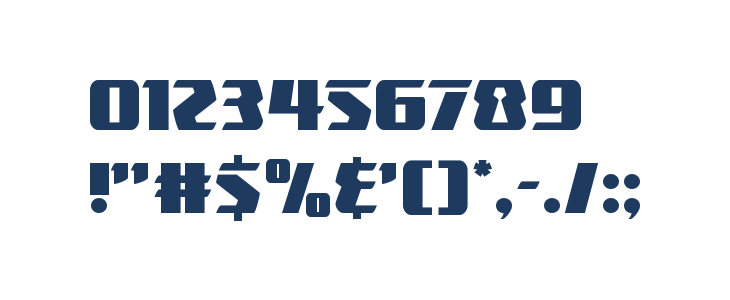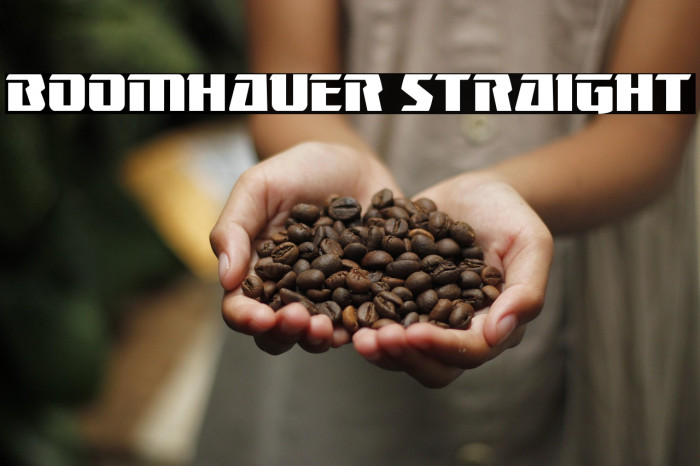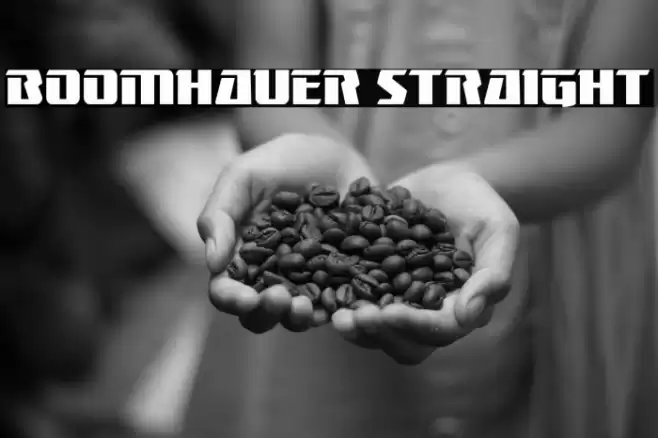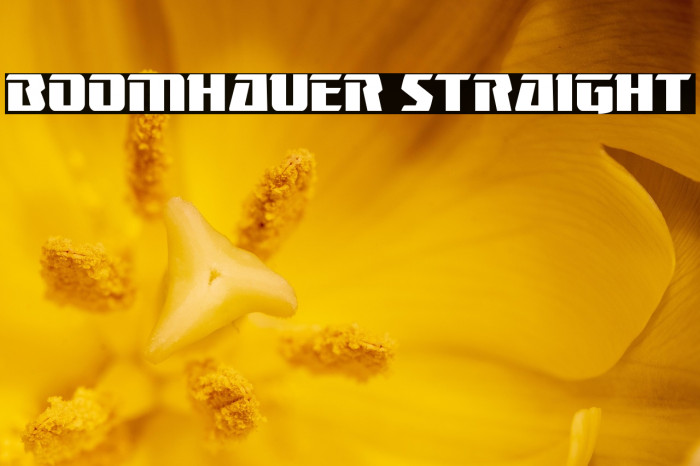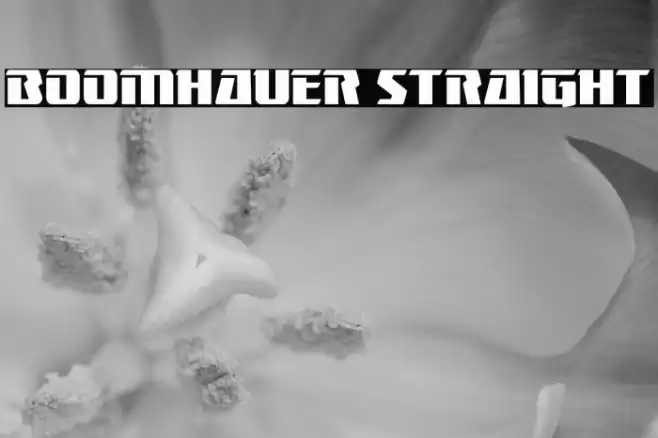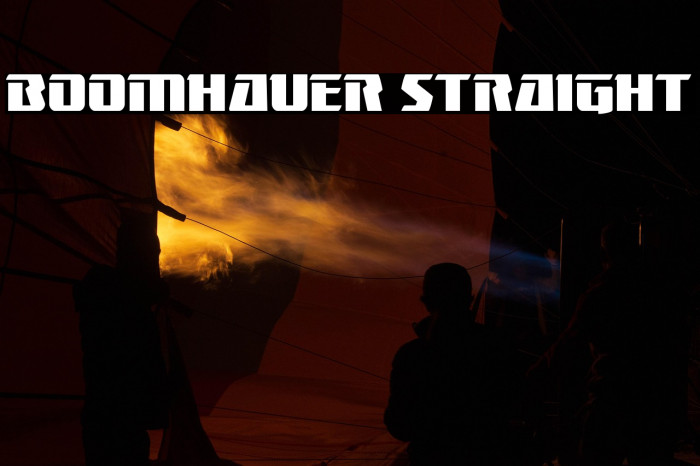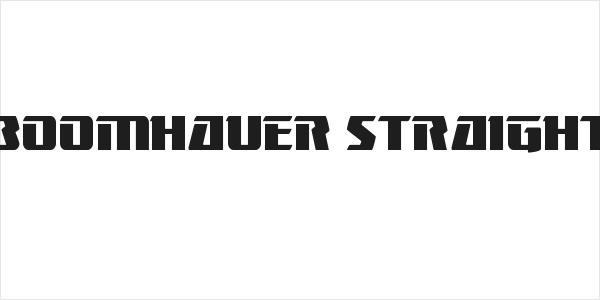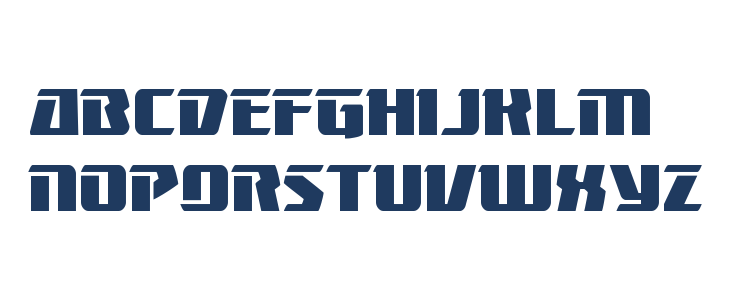
Boomhauer Straight Font
Boomhauer Straight Description
This font features a bold and striking design with angular, geometric shapes that create a sense of movement and energy. The characters are constructed with sharp edges and a blocky appearance, giving it a futuristic and industrial feel. The uppercase and lowercase letters maintain a consistent style, with the uppercase being slightly more pronounced. Numbers and special characters follow the same bold and dynamic design, ensuring uniformity across all elements. The font's unique style makes it stand out, making it suitable for projects that require a strong visual impact.